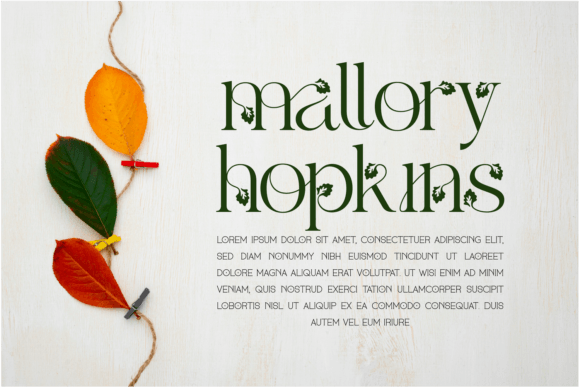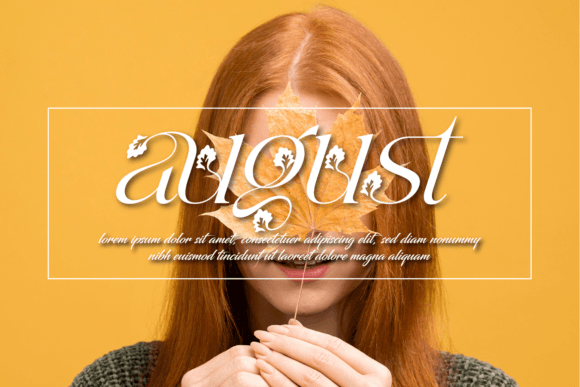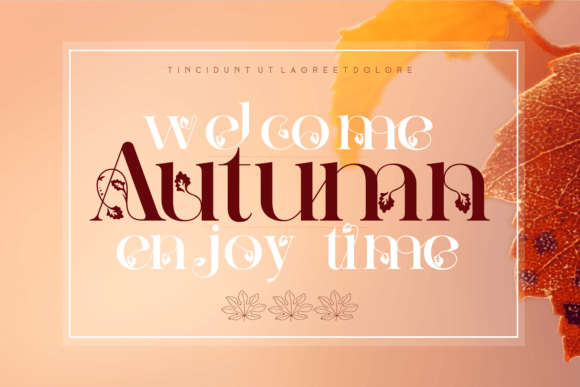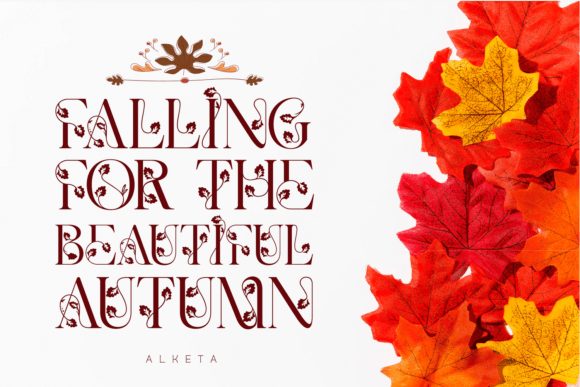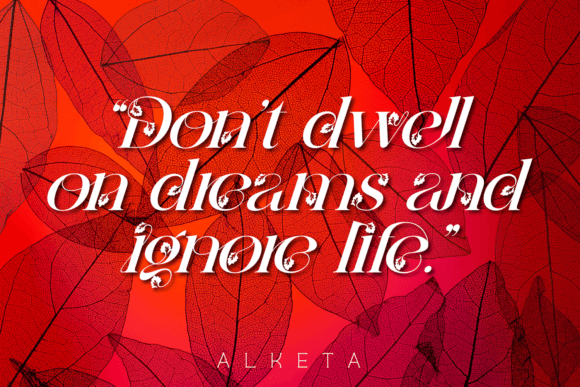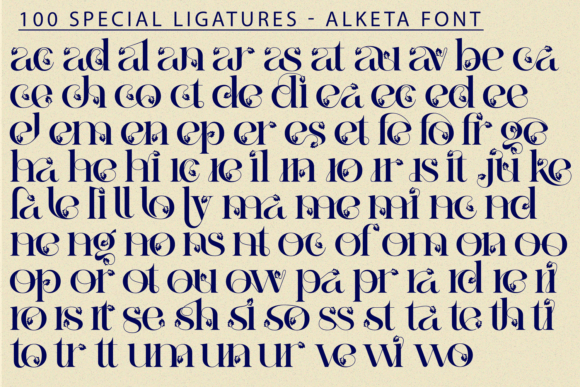
Unleashing the Beauty of Nature: Alketa Nature Font
As a designer, there’s nothing quite like the thrill of finding the perfect font to bring your creative vision to life. For me, it’s often the moment when the perfect combination of style and meaning comes together in a single, elegant design. And that’s exactly what happens when you work with the Alketa Nature Font – a delicate, floral masterpiece that captures the essence of the natural world.
With its intricate details and organic feel, the Alketa Nature Font is perfect for designers looking to add a touch of sophistication and elegance to their work. From beautiful posters to product packaging and logos, this font is a versatile and valuable addition to any designer’s toolkit. Whether you’re looking to create a sense of whimsy or simply want to add some visual interest to your designs, the Alketa Nature Font is sure to inspire.
Alketa Nature Font Key Features
- Font Family: Alketa Nature, with 2 styles (Regular and Bold)
- Character Count: Over 1000 characters, including Latin, Cyrillic, and Greek alphabets, as well as punctuation and symbols
- Unique Characteristics: Hand-drawn, natural, and organic design with subtle texture and imperfections, giving it a unique and earthy feel
Review of Alketa Nature Font
Overall, I found the Alketa Nature Font to be a beautiful and unique addition to any design project. ✨ It has a natural, earthy feel that’s perfect for outdoor or environmental themes. The font is highly customizable, with many options for adjusting the size, color, and style of the text.
- Pros:✨
- Natural and earthy feel
- Perfect for outdoor or environmental themes
- Cons:⚠️
- May not be suitable for formal or corporate designs
- Some characters may not be as detailed as others
While the Alketa Nature Font is a great choice for many projects, it may not be the best fit for more formal or corporate designs. Additionally, some of the characters may not be as detailed as others, which could be a drawback for designers who require a high level of precision. ✨ However, for projects that call for a natural, earthy feel, this font is a great choice.
Use the Alketa Nature Font to create natural and earthy designs, such as invitations, brochures, and social media graphics. This font is perfect for outdoor-themed designs, like park maps, hiking trails, and nature-inspired artwork.
Use the Alketa Nature Font to create detailed and realistic designs, such as botanical illustrations, nature-inspired patterns, and outdoor-themed graphics.
Use the Alketa Nature Font to create engaging and natural-looking presentations, such as nature-inspired slides, outdoor-themed reports, and earthy documents.
To get the most out of the Alketa Nature Font, use it in combination with earthy colors, natural textures, and outdoor-themed graphics. This font is perfect for designs related to nature, outdoor activities, and environmental conservation.
Common use cases for the Alketa Nature Font include:
- Nature-inspired artwork and illustrations
- Outdoor-themed designs, such as park maps and hiking trails
- Environmental conservation reports and documents
- Nature-inspired social media graphics and invitations